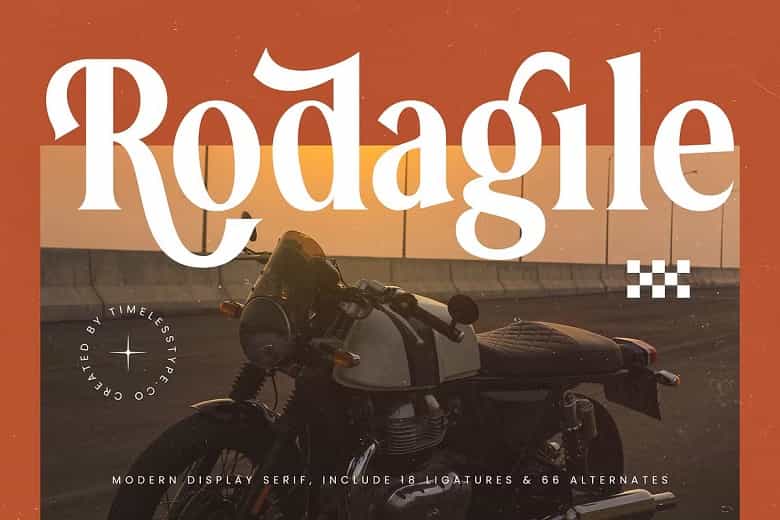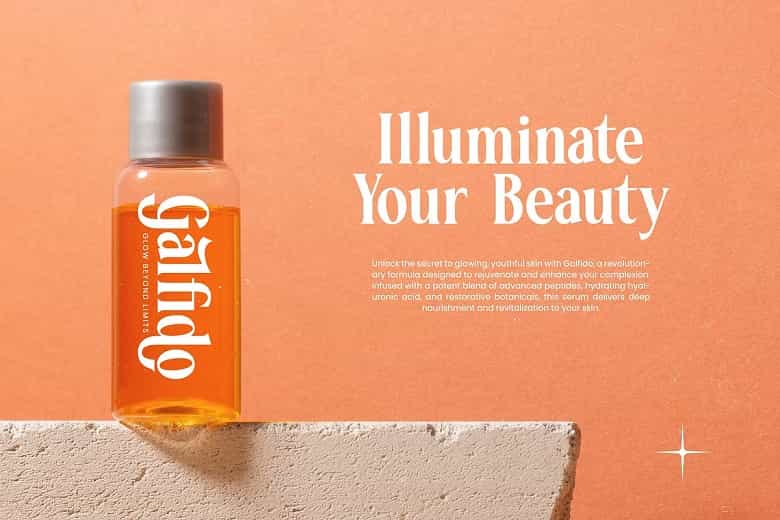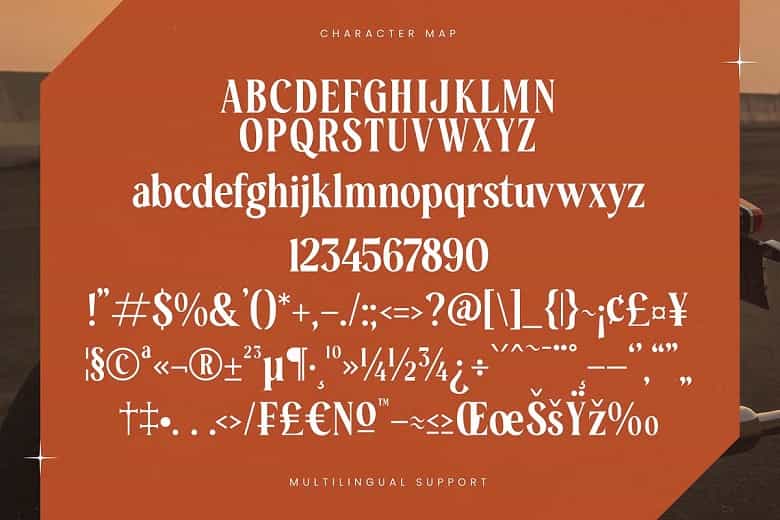
Rodagile is a new display serif font from the archive Timelesstype. Co, It’s suitable for any projects such as: logos, branding projects, product packaging, mugs, quotes, posters, shopping bags, t-shirts, book covers, name card, invitation cards, greeting cards, label, special events, and all your other luxury and beautiful projects.